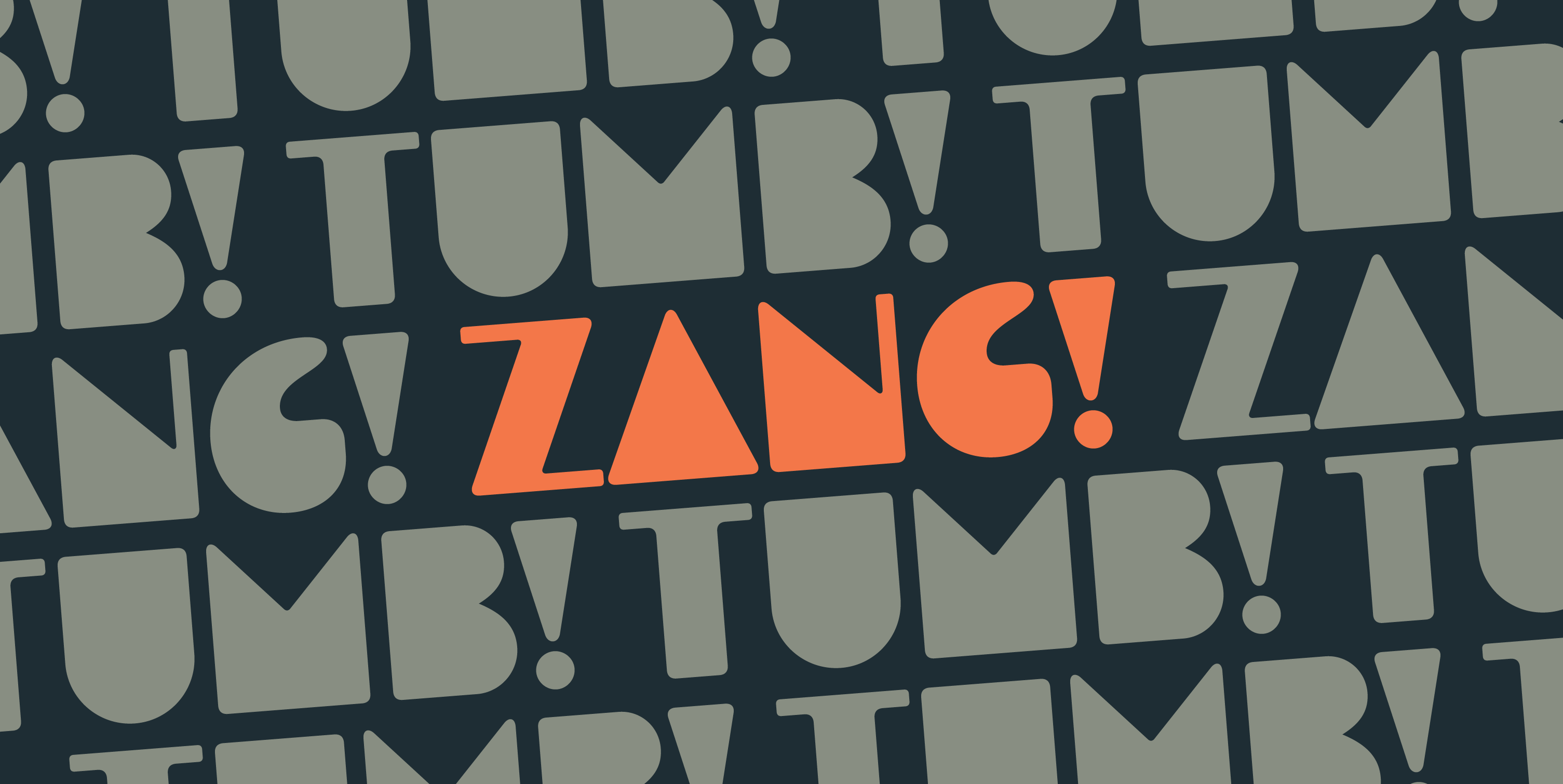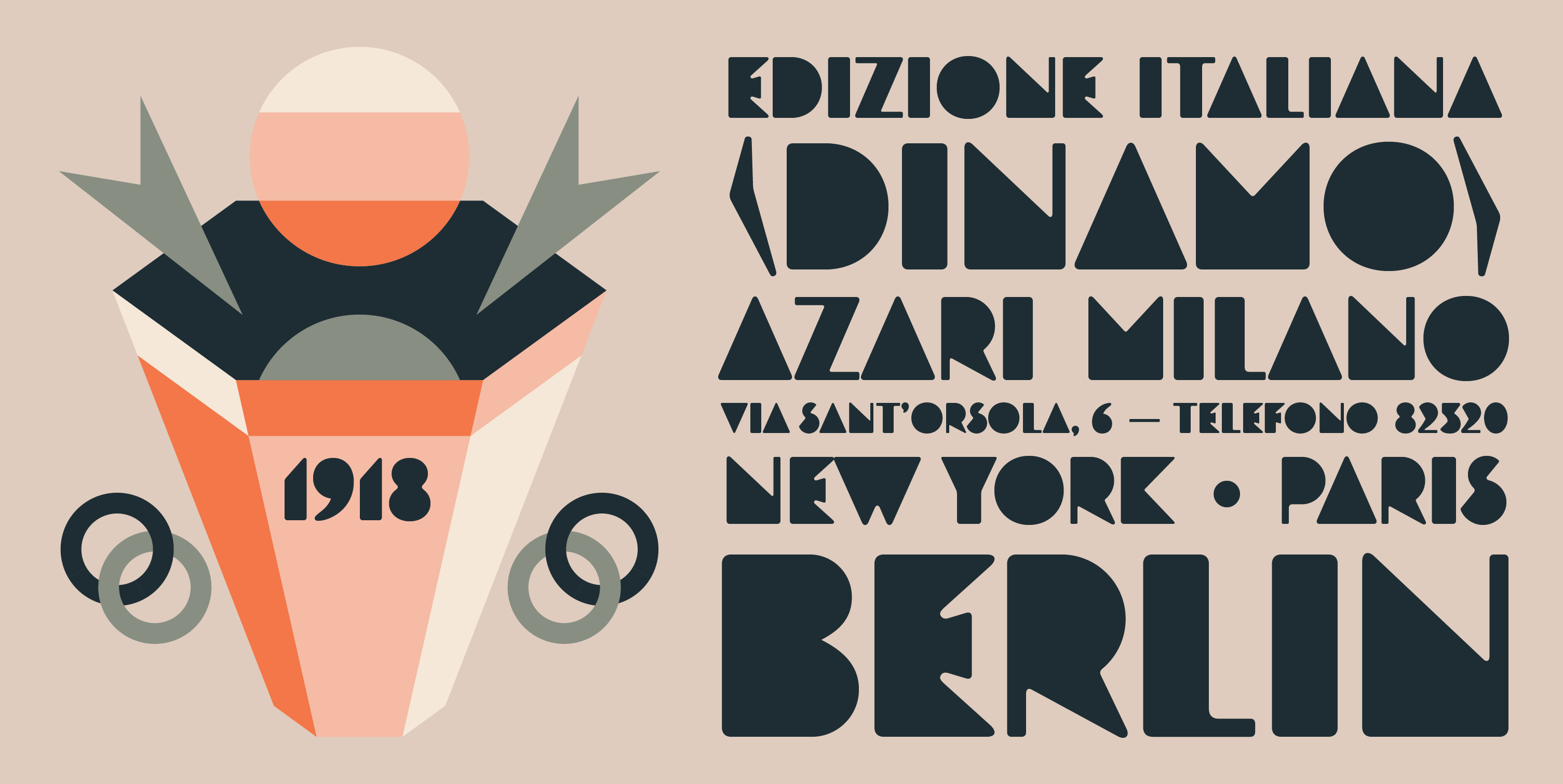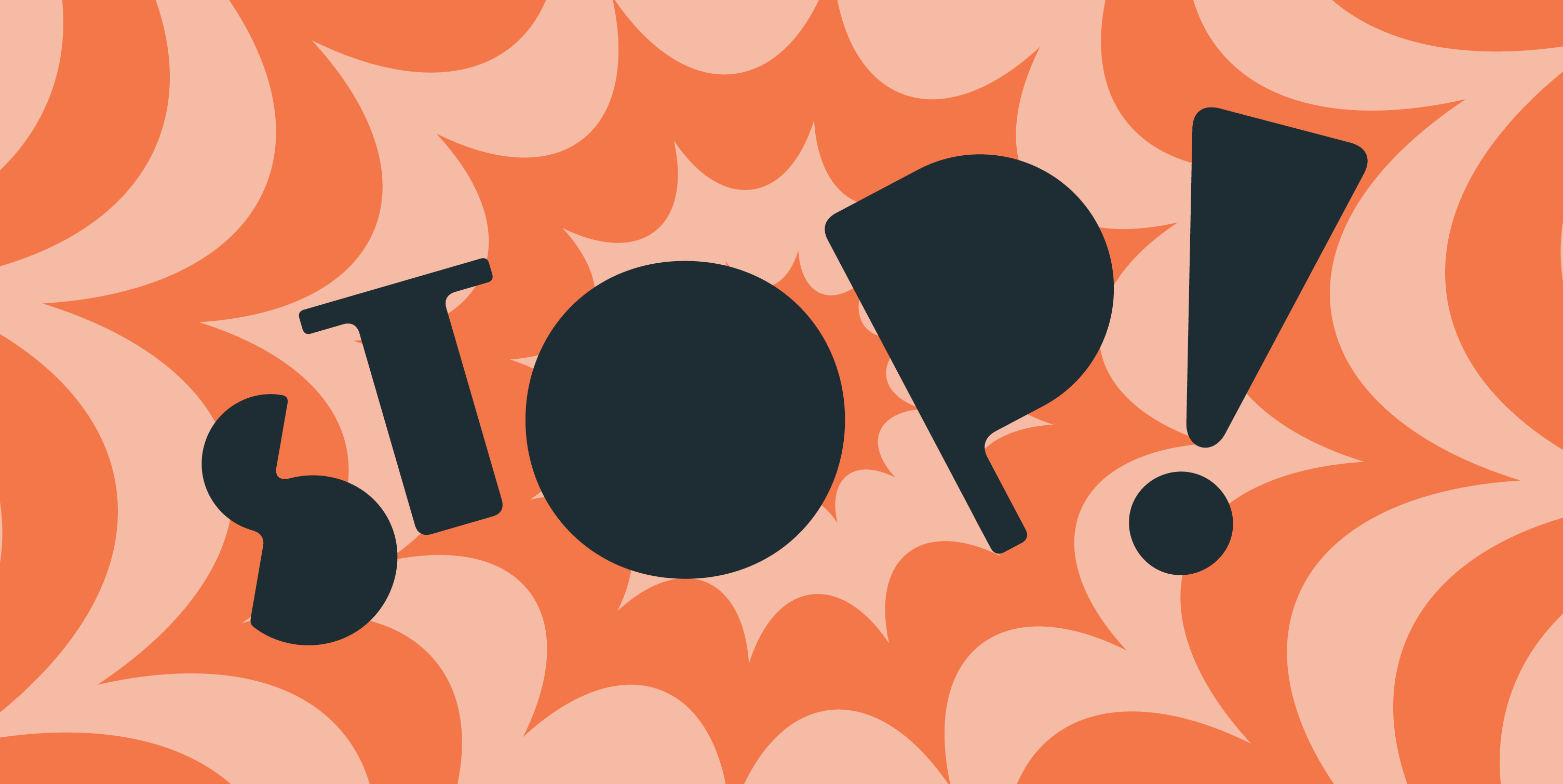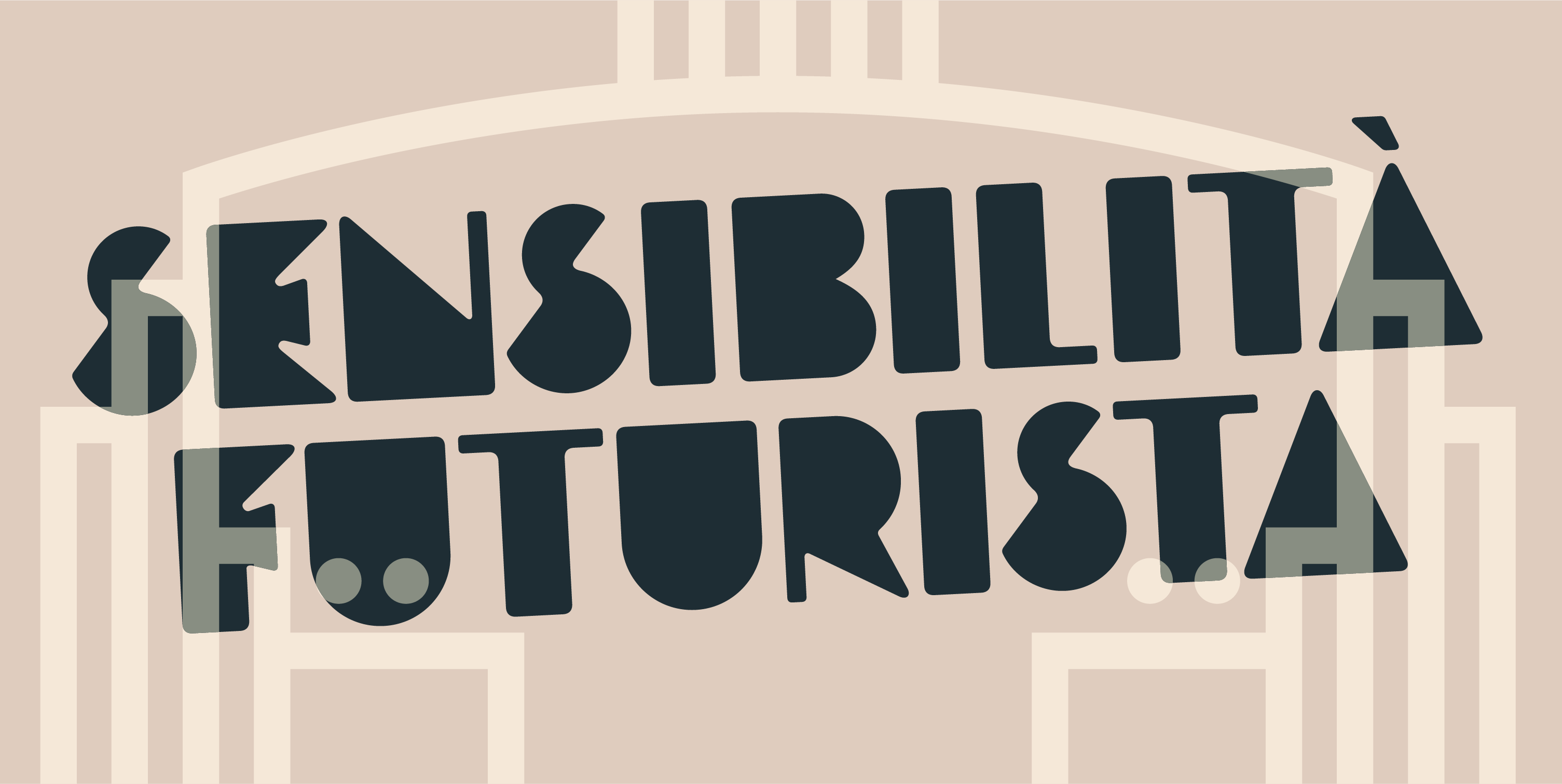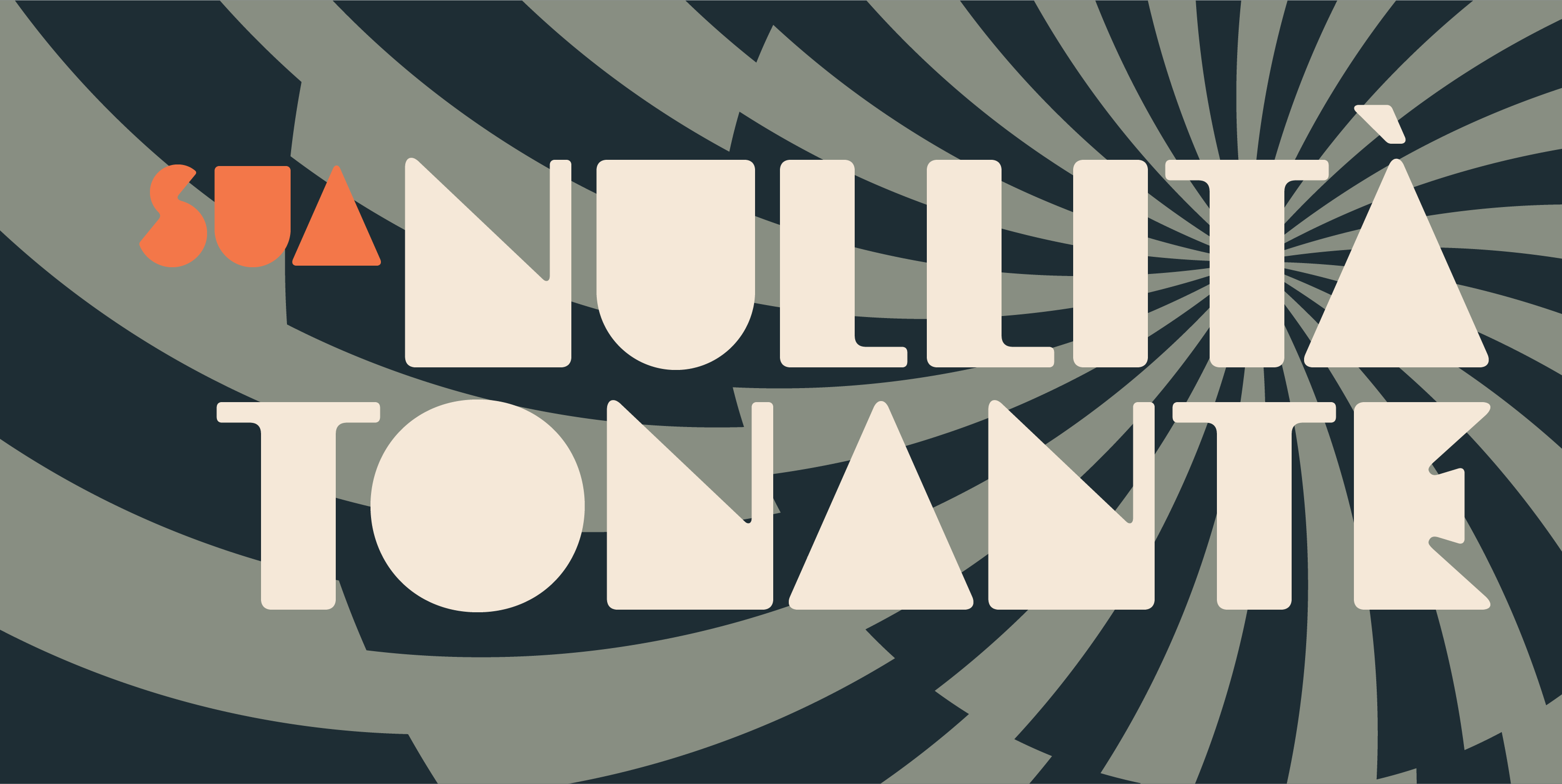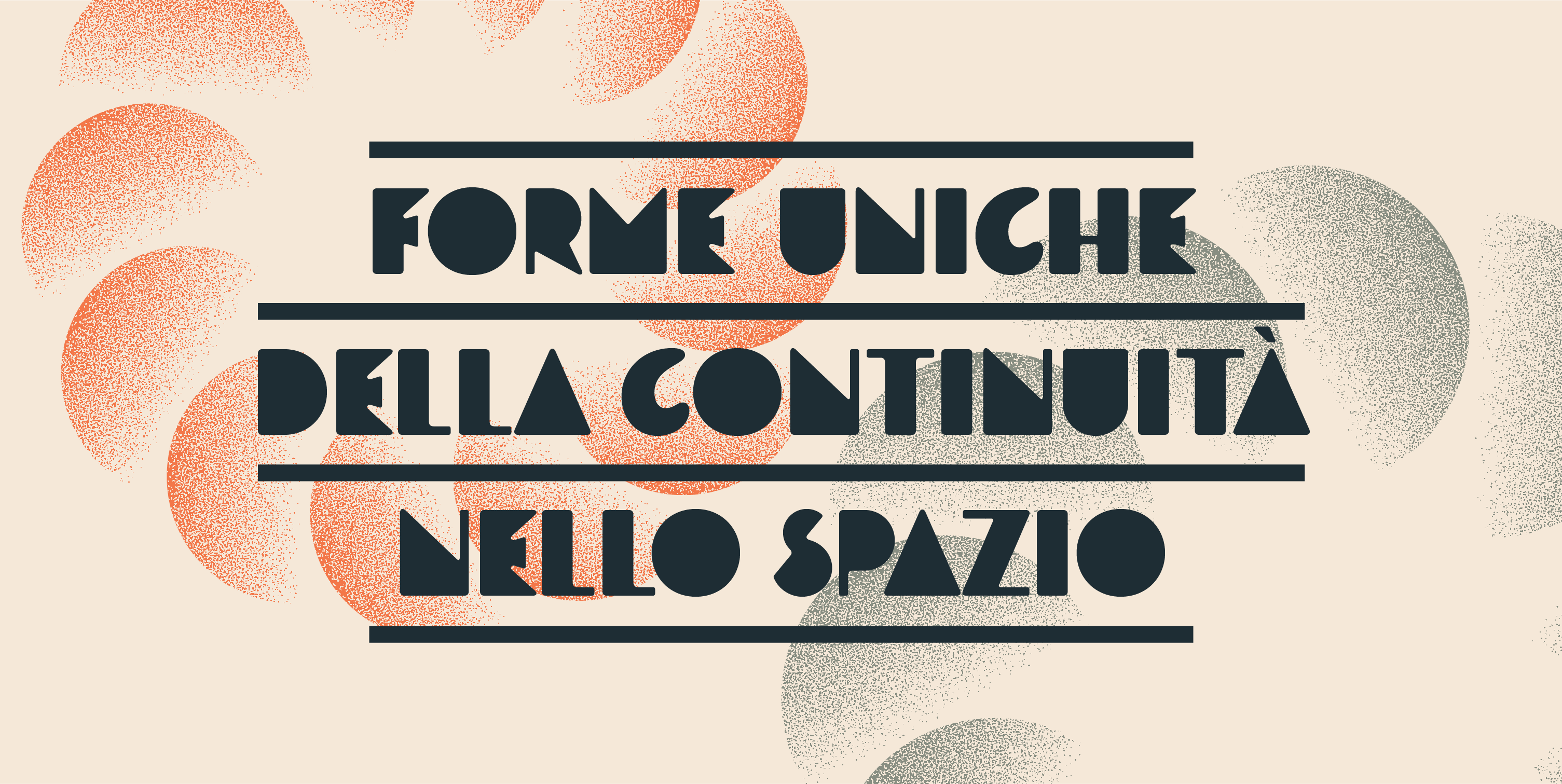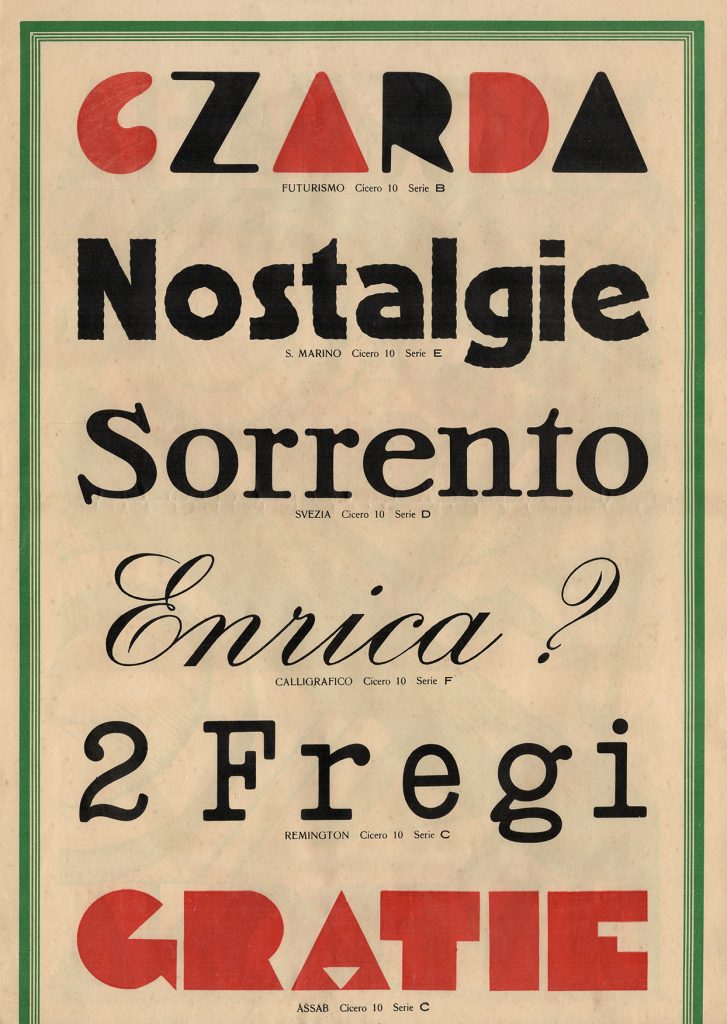
Futurismo
Futurismo is a counterless all-caps sans with a very simple construction based on circles, triangles, and rectangles. All corners are slightly rounded and several letters display a peculiar thick/thin contrast, even in unexpected instances like the stem of P.
Alessandro Bombieri
The original Futurismo was released around 1930 by Xilografia Ruggero Zuliani of Verona, the same wood type manufacturer that also produced Assab, another counterless typeface based on basic geometric shapes.
‘In the AM Futurismo digital revival,’ explains the designer Alessandro Bombieri, ‘all edges and terminals have been equally rounded to achieve a more uniform appearance’. The original design was very coarse, and several details of the numerals and other characters had to be refined for greater consistency. However, to stay as true as possible to the original design and keep its rugged and amateurish look, ‘some idiosyncrasies were kept very close to their original shapes, see for instance the organic shapes of C, G and Q’.